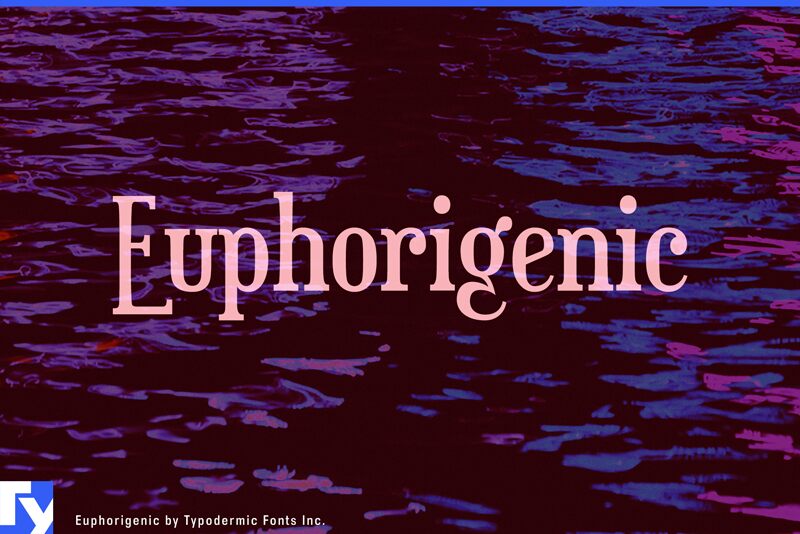
Euphorigenic by Ray Larabie of Typodermic Fonts Inc. is a free high-contrast serif display font with a sharp, fashion-conscious look. Its tall, narrow letters combine broad vertical strokes with very fine joins and serifs. The rounded forms remain controlled rather than soft.
Fashion and culture brands can use it for perfume packaging, boutique identities, and event posters, where the dramatic proportions suggest editorial sophistication. It gives magazine covers an upscale voice.
Euphorigenic is a slab-serif headline font created in 1999. The latest version has a more complete character set, improved spacing and kerning, broader language coverage, and is optimized for web embedding.